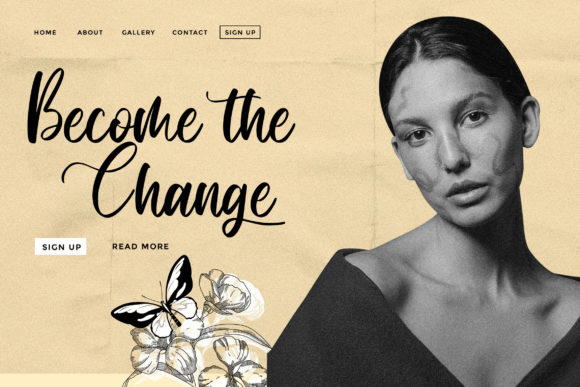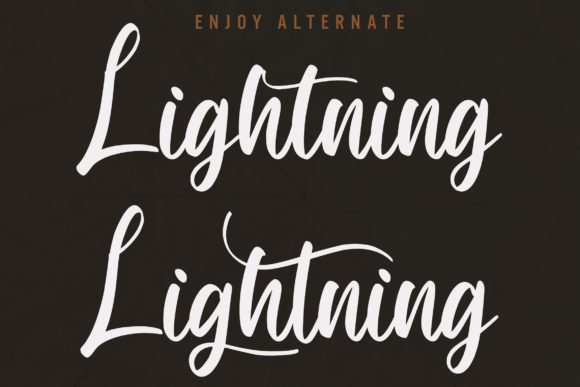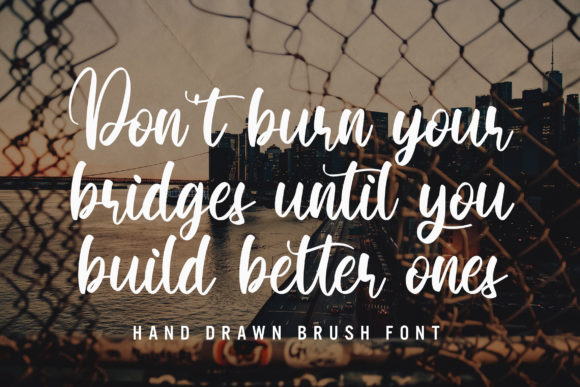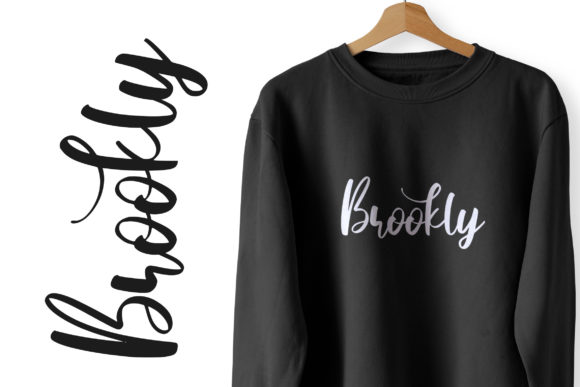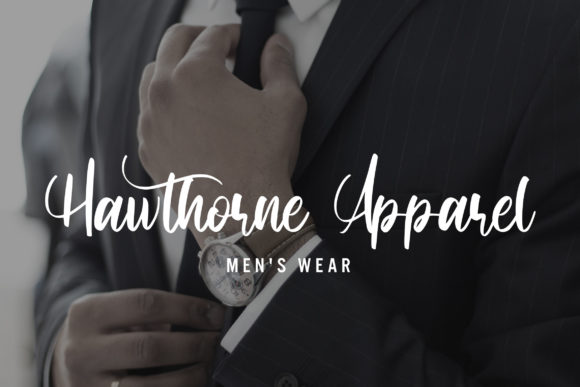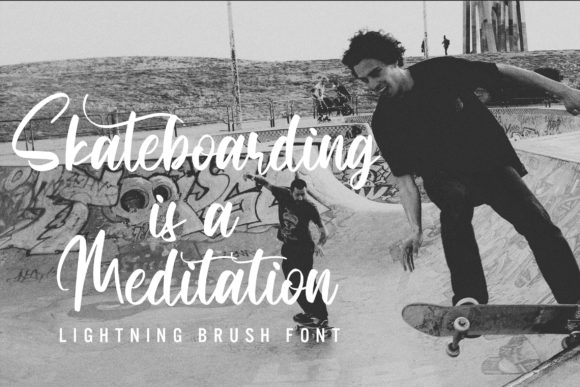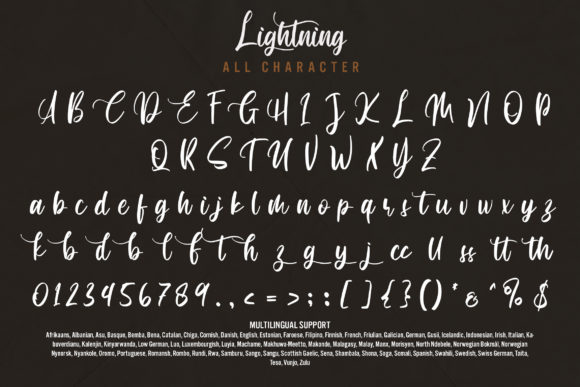
Lightning Font
About Lightning Font
Lightning is a cursive script font that embodies a sense of beauty, grace, and delicacy. With its lovely and elegant style, this font is well-suited for a wide variety of design projects, making it a versatile and go-to choice for any occasion.
The flowing and curvaceous nature of Lightning gives it a sense of movement and dynamism. Each letter is carefully crafted to create a smooth and effortless connection between characters, resulting in a harmonious and visually pleasing script. The thin and delicate strokes add an air of elegance and sophistication, making Lightning a perfect choice for projects that require a touch of refinement.
One of the standout features of Lightning is its versatility. This font is suitable for a range of design applications, whether it’s creating wedding invitations, elegant logos, stylish branding, or romantic greeting cards. Its timeless and classic style ensures that it can adapt to various themes and aesthetics, adding a touch of beauty and charm to your designs.
The neat and clean appearance of Lightning contributes to its overall elegance. Each letter is meticulously designed to maintain a sense of balance and readability, ensuring that your message is conveyed clearly and effectively. Whether used as a headline or as part of a larger composition, Lightning adds a touch of sophistication and style to your design.
With its versatility and elegant style, Lightning has the potential to become your favorite go-to font. Its cursive nature and delicate curves make it a font that exudes charm and beauty, elevating the visual impact of any project. Whether you’re designing for a special event or creating a brand identity, Lightning will bring a sense of elegance and refinement to your work.
In summary, Lightning is a cursive script font with a lovely and delicate style. Its versatility and neat appearance make it suitable for a wide variety of designs, while its elegance and sophistication add a touch of beauty to any project. Let Lightning become your go-to font for creating stunning and captivating designs that leave a lasting impression.